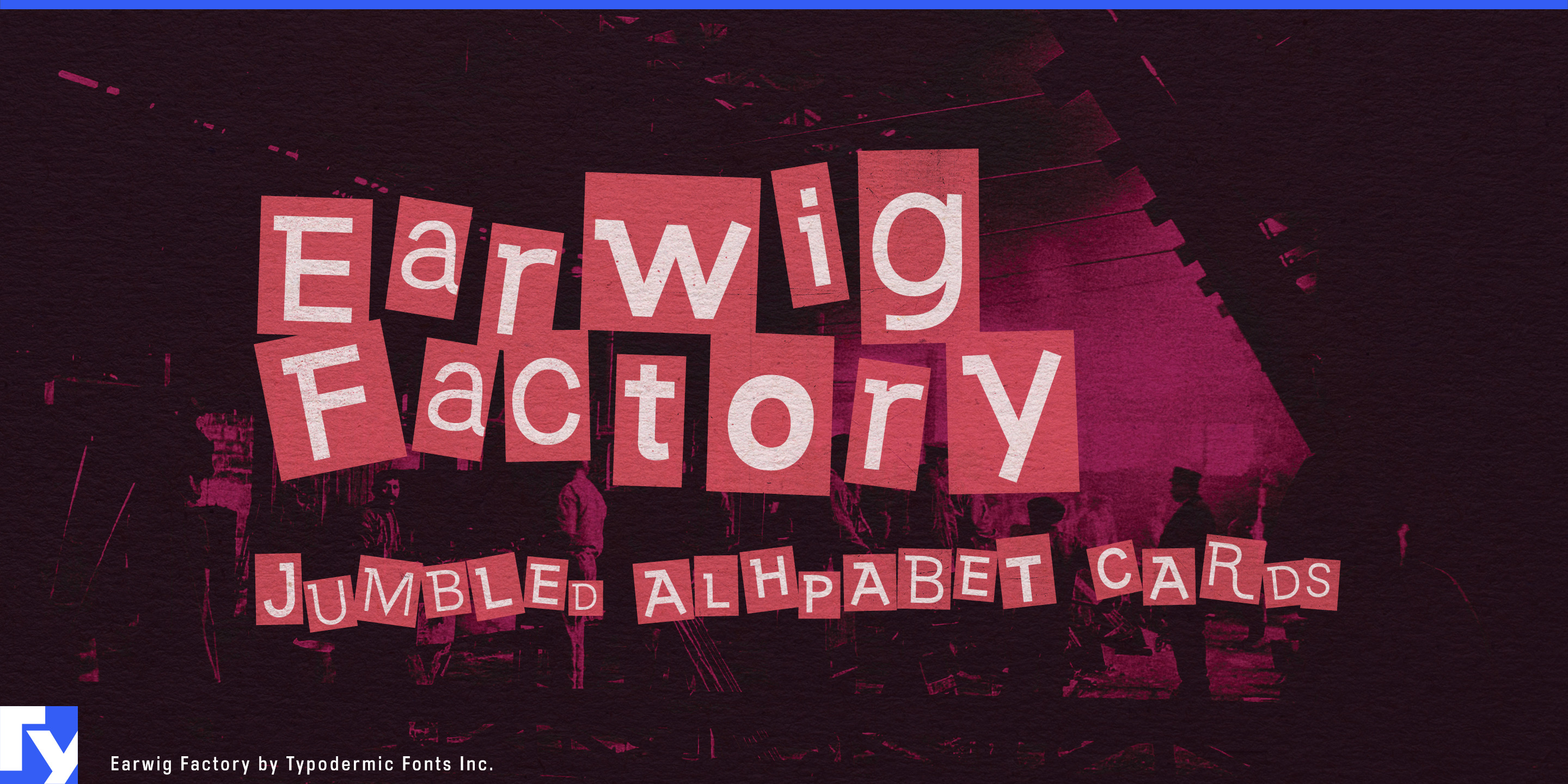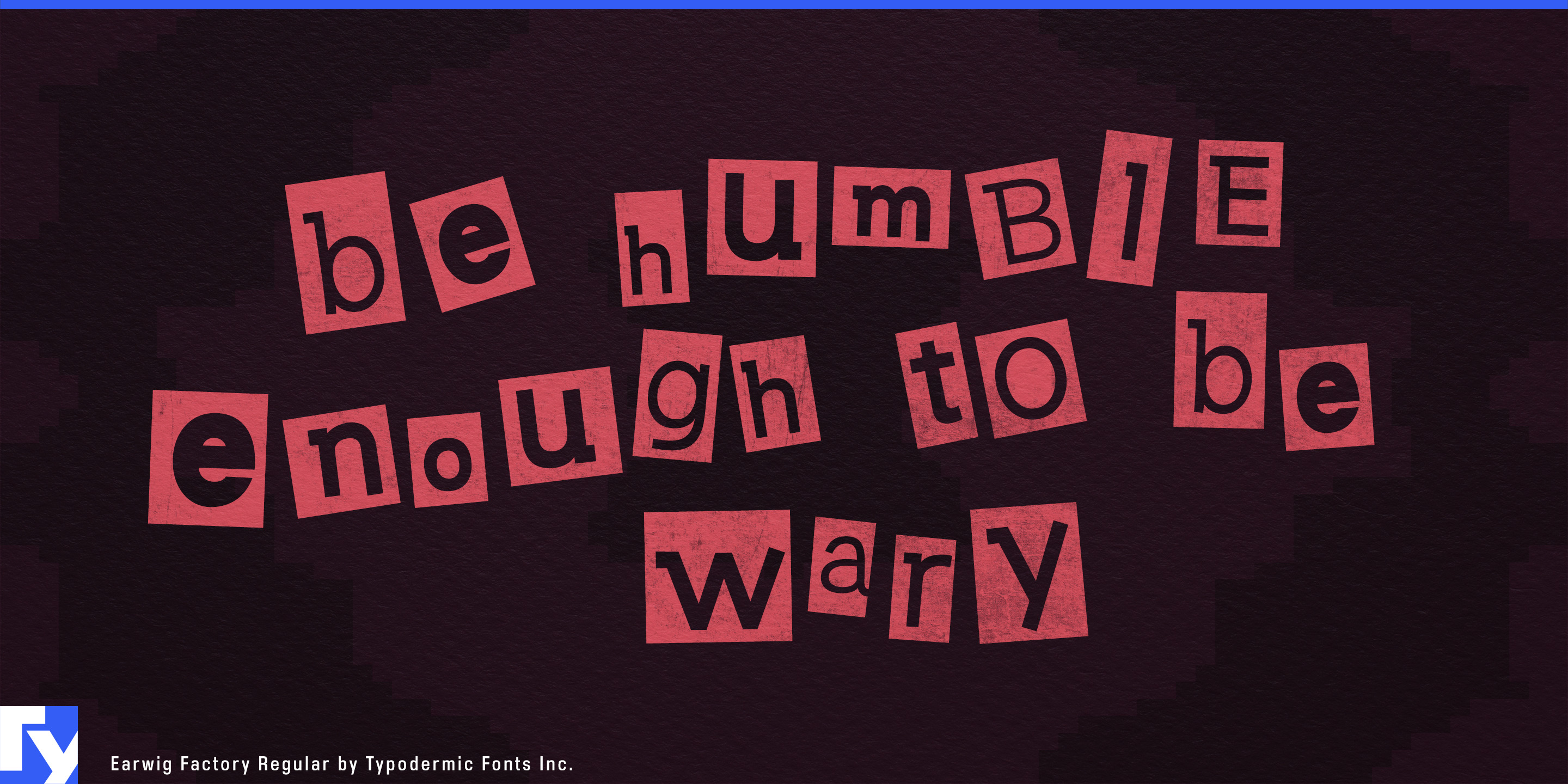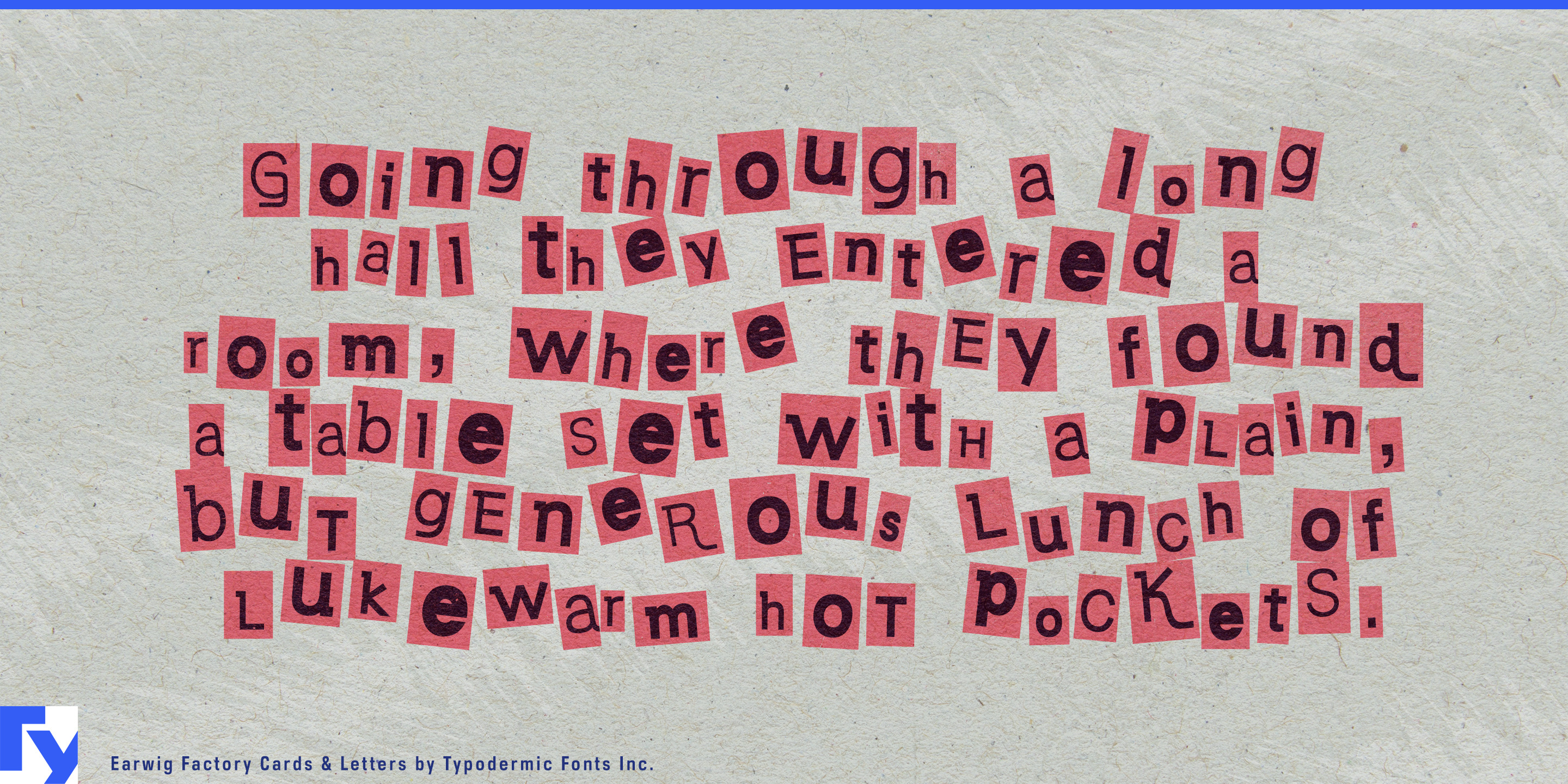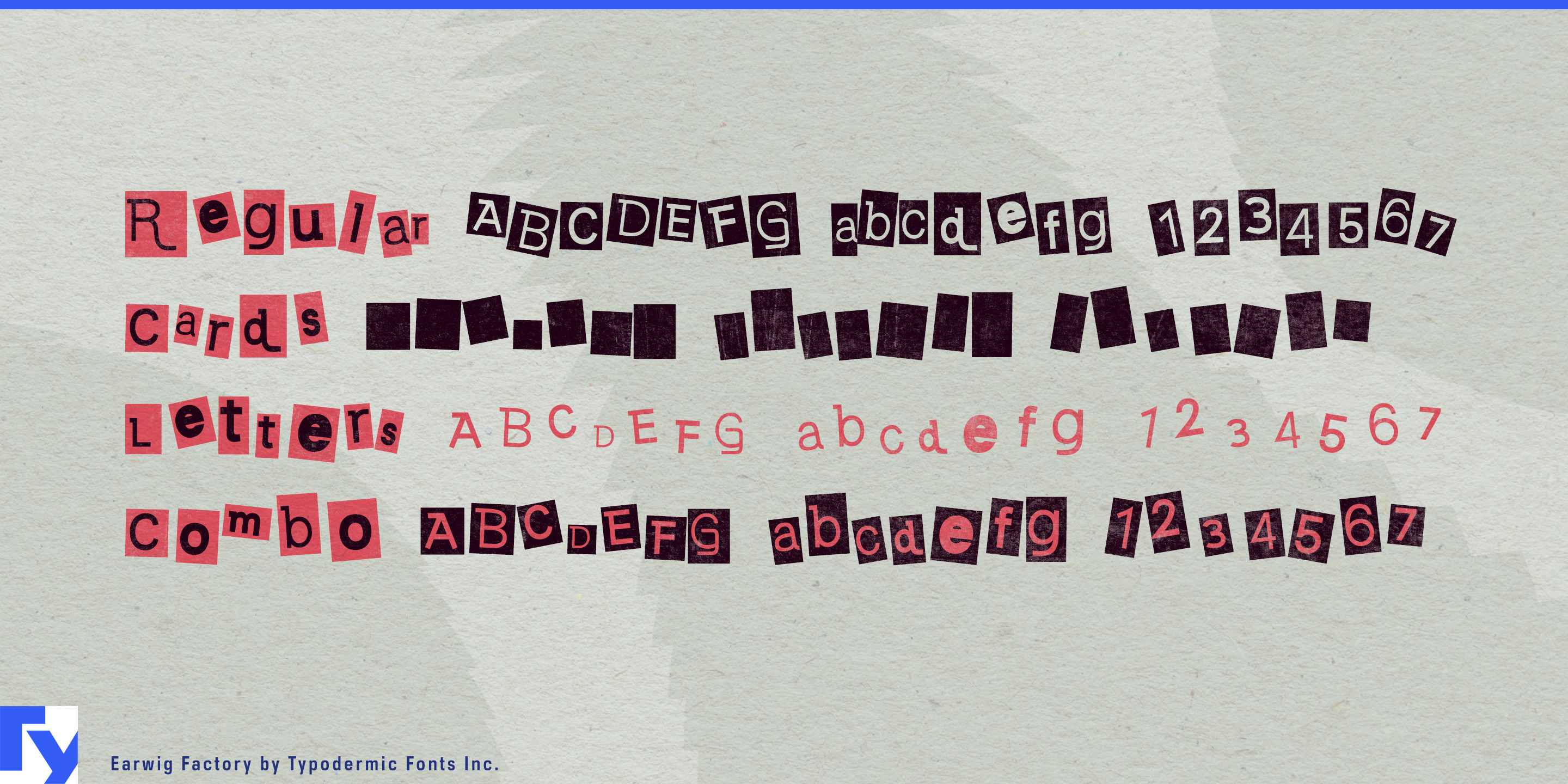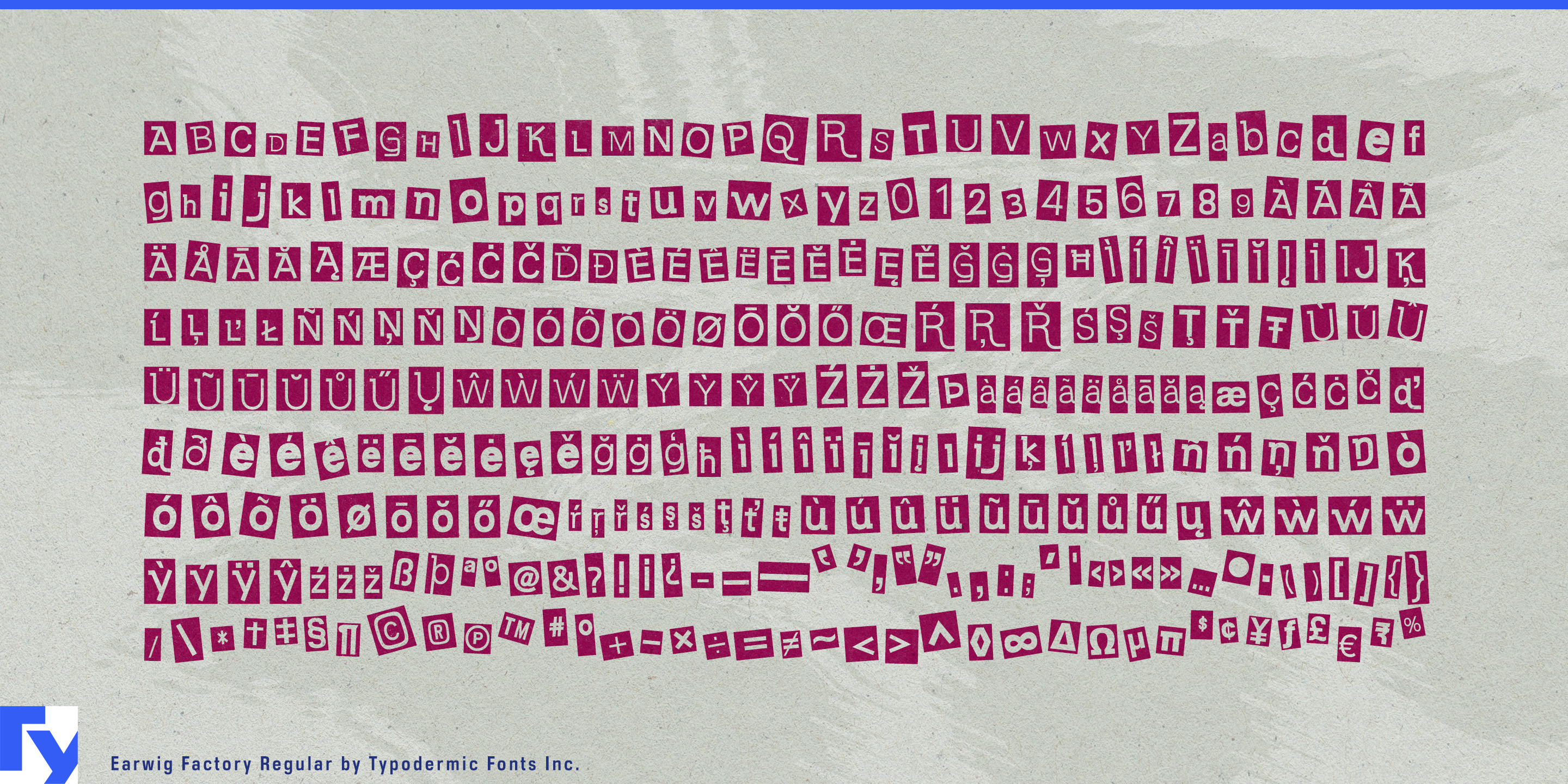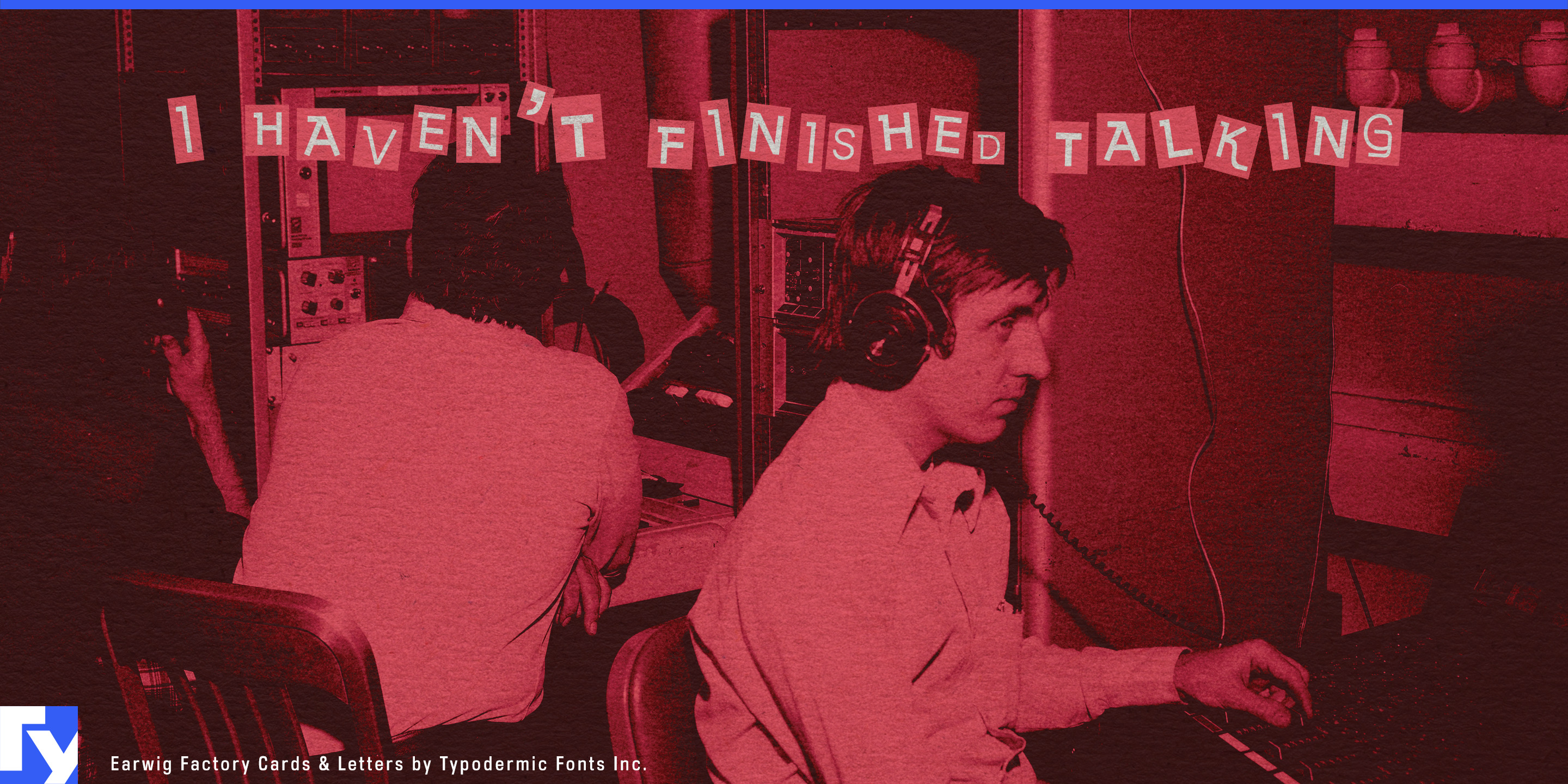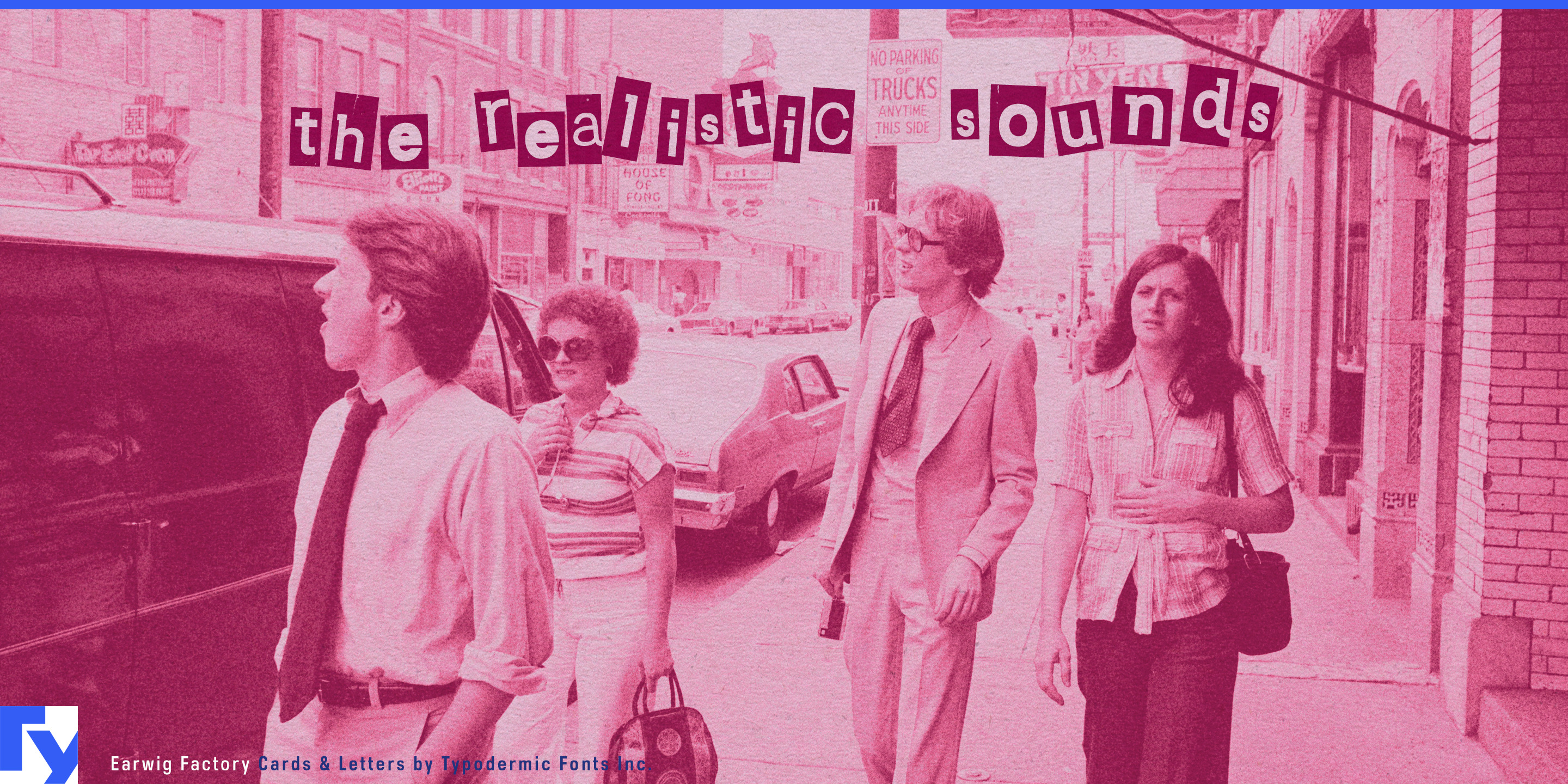
Earwig Factory
Cut-and-paste lettering comes with chaos built in. The harder part is controlling that chaos once a campaign needs more than one finished effect. Earwig Factory separates its mismatched letters from the irregular cards behind them, turning the ransom-note construction into a layered display system that can be recolored, textured, animated and printed in parts.
Regular combines the complete effect; the coordinated Letters and Cards styles separate its two components so they can be overlaid and treated independently. One layer can carry the lettering while the other takes a contrasting palette, photocopied paper, photography, foil, varnish or another material treatment. Changing the relationship between the layers lets the same typography move in very different directions without losing its identity.
Motion-heavy entertainment campaigns are a natural fit. Title sequences, trailer graphics, streaming promos, episode cards and social teasers can animate the Cards and Letters separately. Backing shapes can appear first, flicker, shift color or disappear while the lettering remains fixed; textures can change between scenes without rebuilding the title treatment.
Tour identities, festival systems, artist launches and live-screen graphics face the same production problem. Earwig Factory’s layers let campaign colors and textures change across posters, stage displays, merchandise, social video and venue graphics while the underlying structure remains consistent.
Fashion, sneaker and sportswear launches can use the separation for seasonal color systems across retail windows, temporary walls, shopping bags, cartons, apparel graphics and digital campaigns. Packaging ranges can assign different inks or finishes to Letters and Cards, allowing foil, metallic ink, spot varnish, embossing or photographic texture to affect one component without changing the other.
Mystery games, crime adventures, conspiracy narratives and darkly comic games can use Earwig Factory for anonymous messages, clue headings, faction communications, chapter cards and promotional graphics. The separated components make reveal sequences and source-coded color systems easier to build, while alternate character forms help repeated letters avoid obvious duplication.
Earwig Factory works best when the cut-and-paste effect is only the beginning. Regular provides the assembled result; Letters and Cards give designers access to the parts, making the family useful wherever color, motion, texture and production treatment need to keep changing after the first headline has been solved.